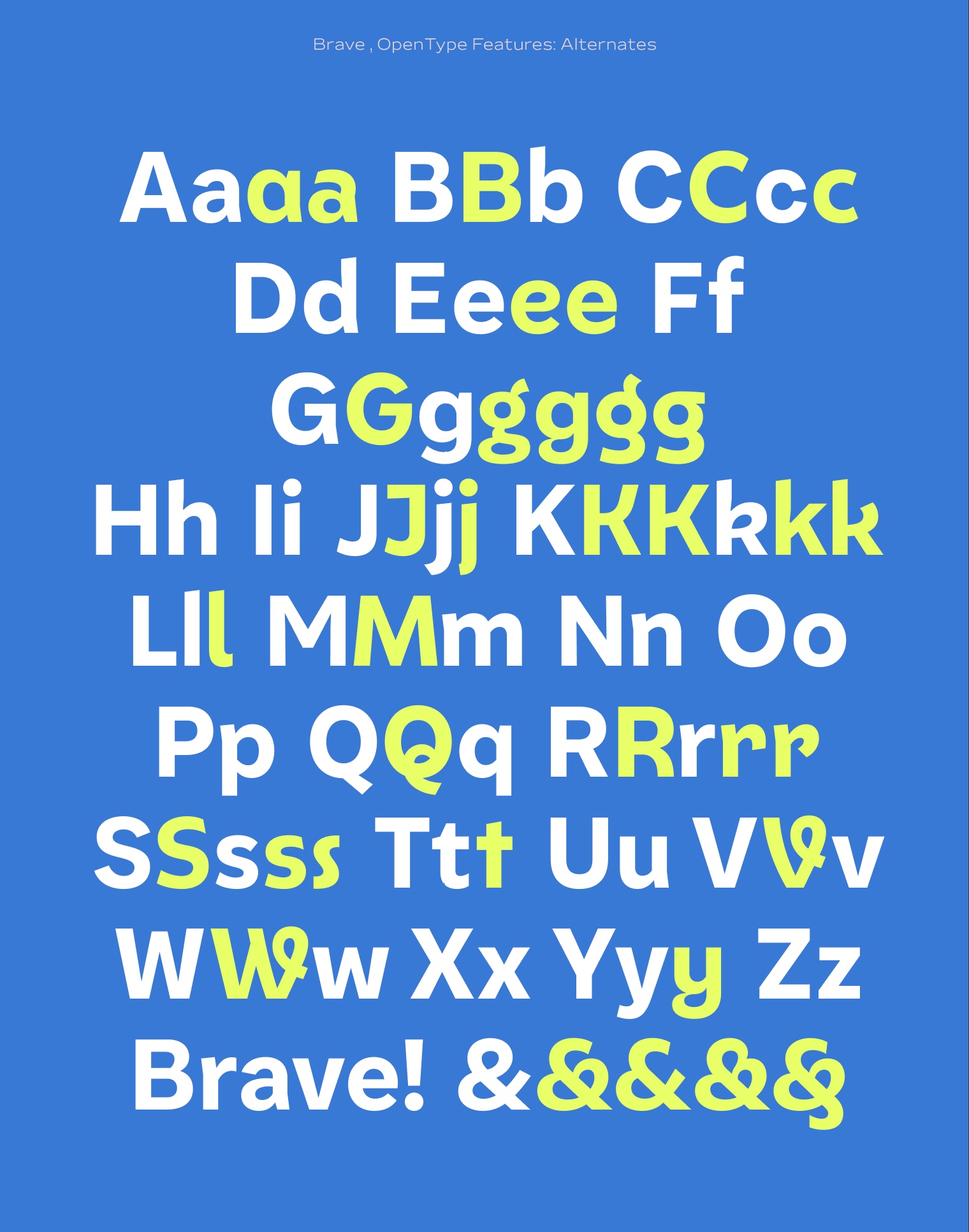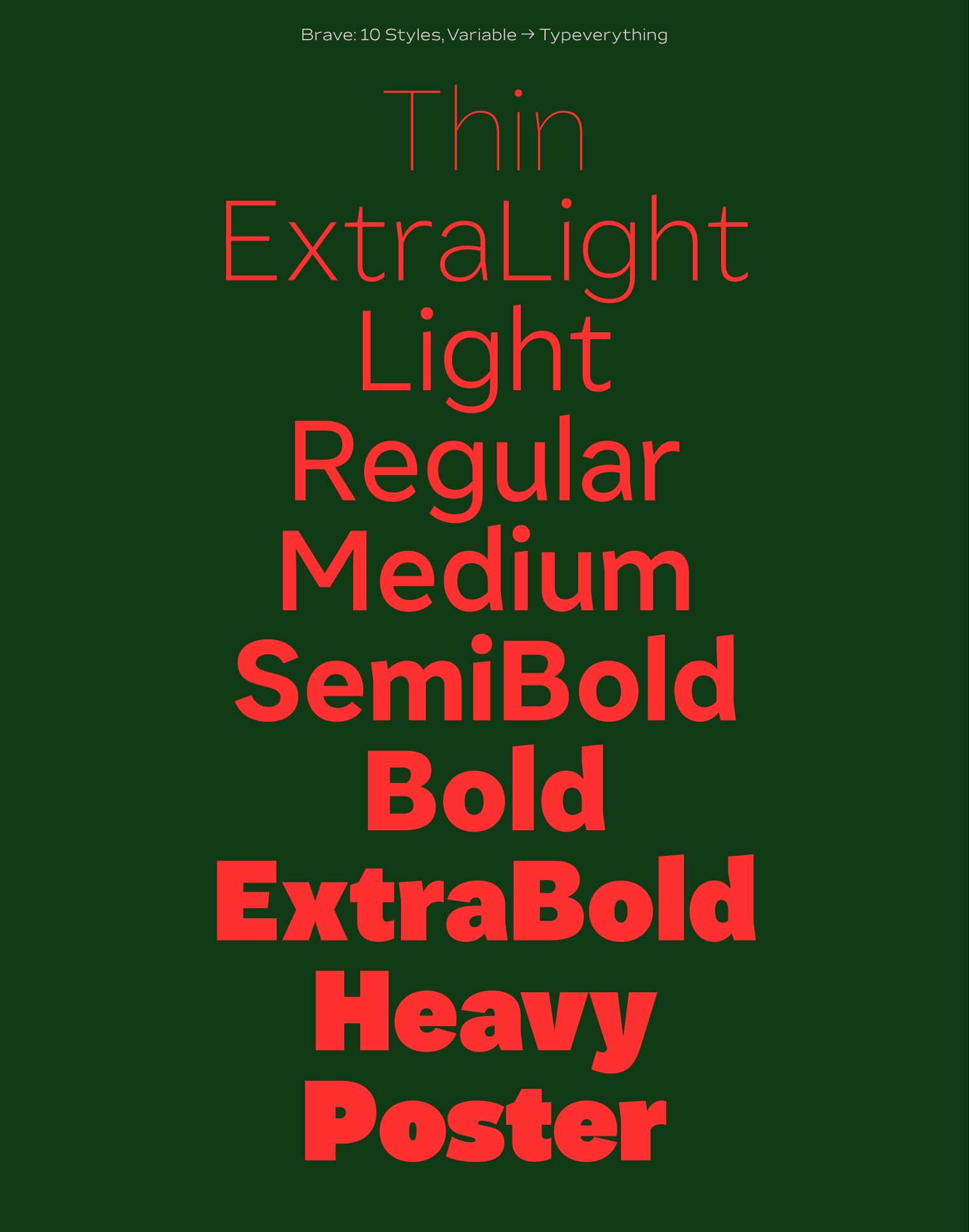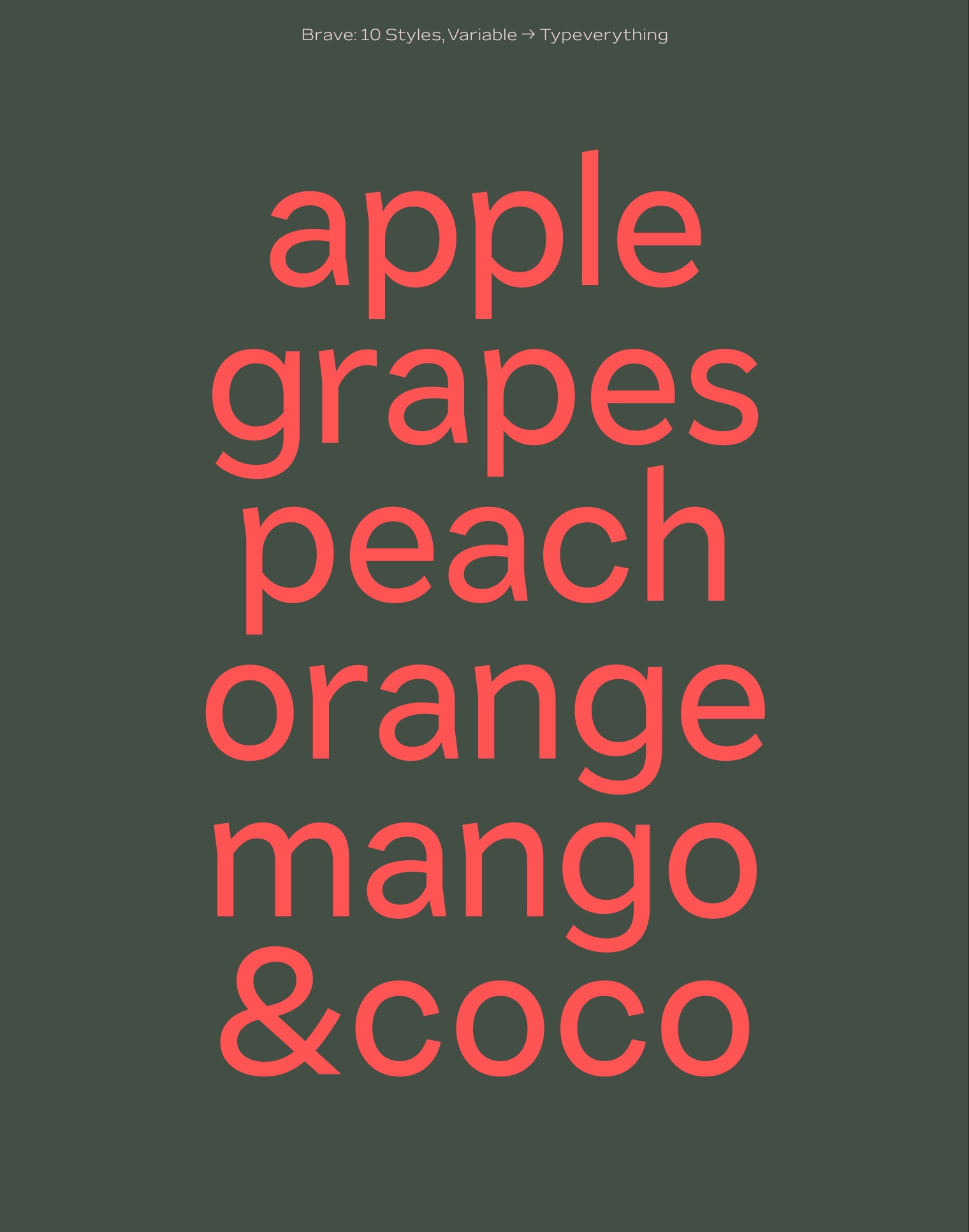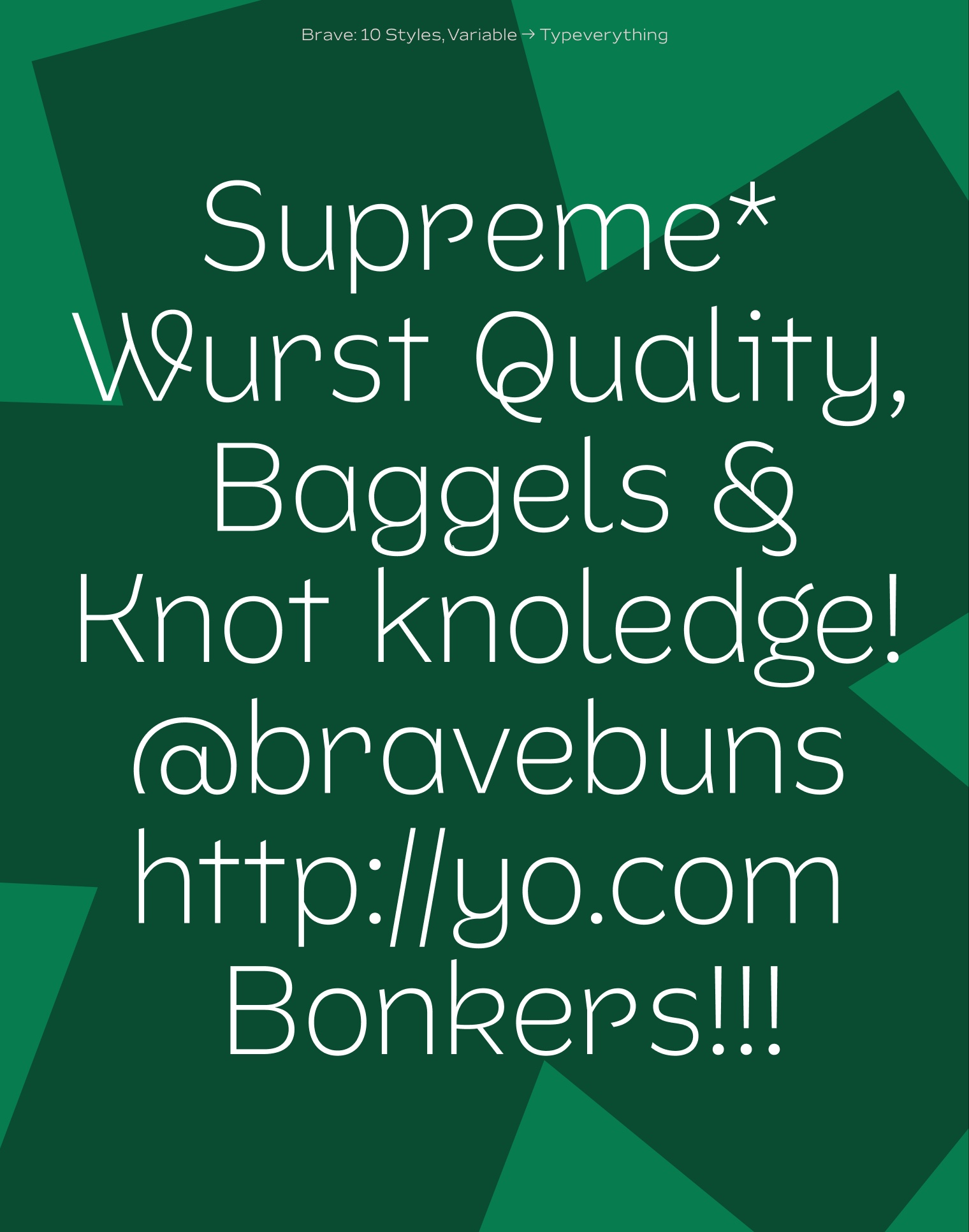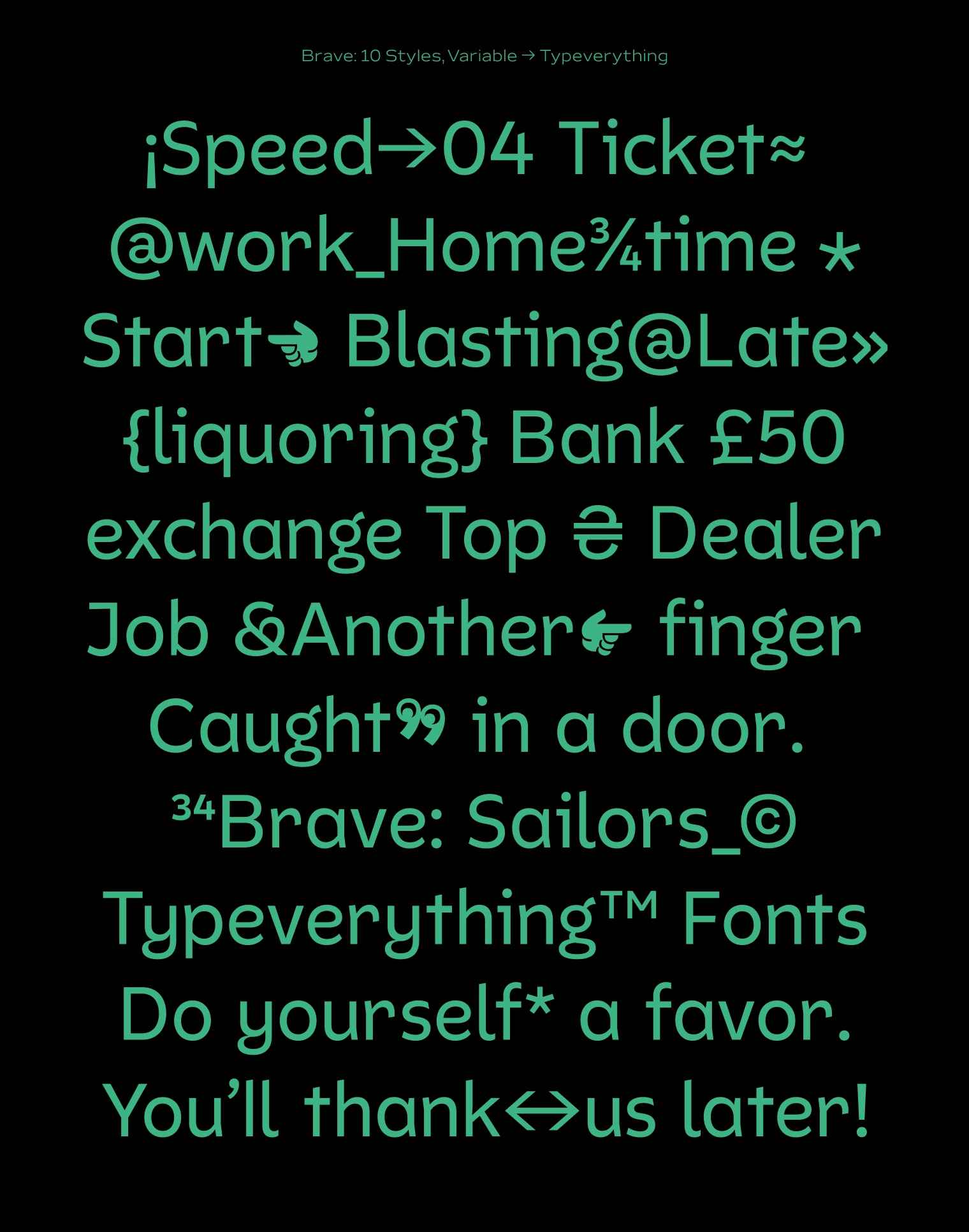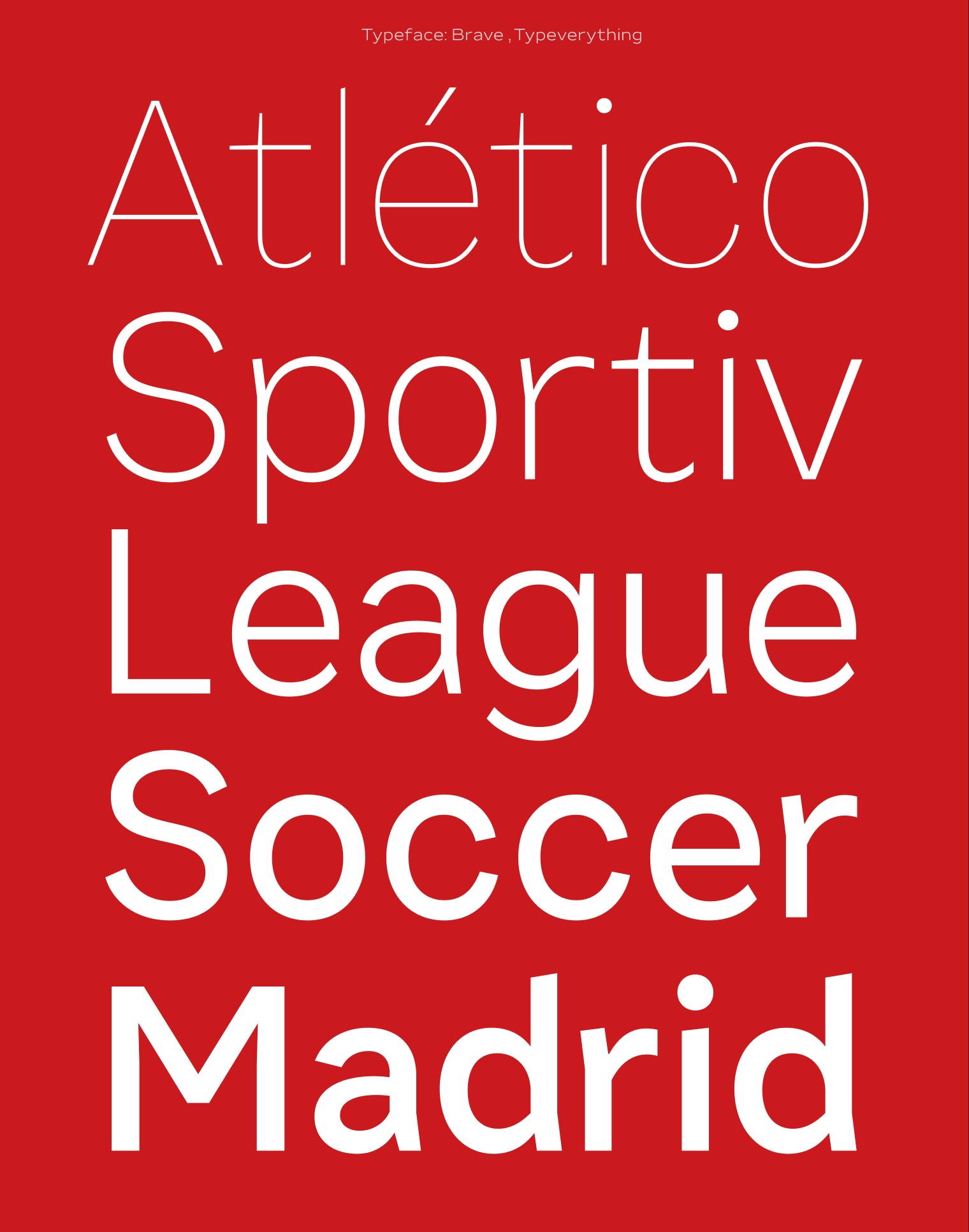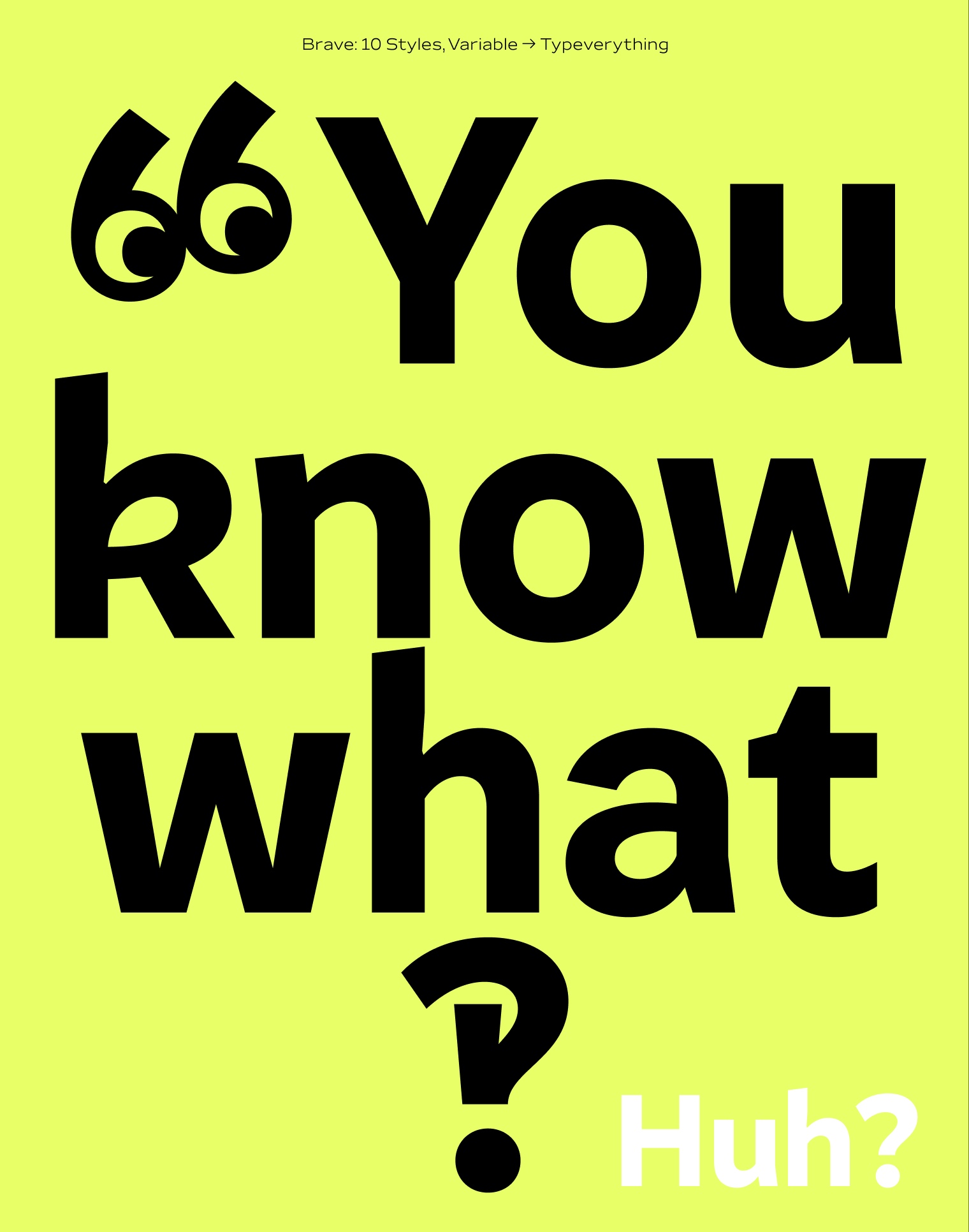
Brave Typeface by Typeverything
Brave is a contemporary reinterpretation of Bernhard Black (1928), a preliminary version that preceded Bernhard Block. This early design caught our attention for its bold, confident stance and slightly angled stems, which gave it an unexpected warmth and rhythm. We saw in those subtle stem details something timeless, a detail that still feels modern today. So, in a world full of neutral sans-serifs, we decided to create a Brave new one. The result is a sans family of 10 styles, built for clarity and impact. It balances early 20th-century strength with a refined, contemporary sensibility, making it perfect for branding, packaging, editorial layouts, and even extended text. Brave is both a tribute to early geometric typefaces and a confident step forward, distinctive, versatile, and full of character.